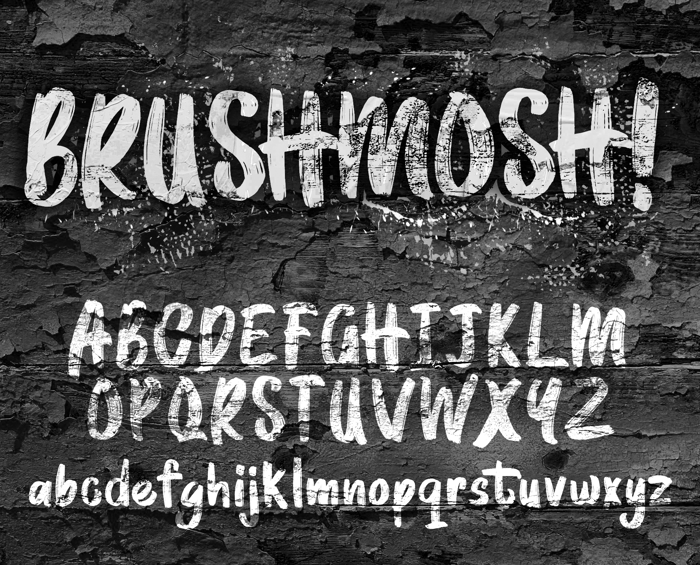
BRUSHMOSH! Font
BRUSHMOSH!
- Modern brush inspired font perfect on your school projects, covers, etc.
- Lifestyle street theme font for branding, website, mobile app etc.